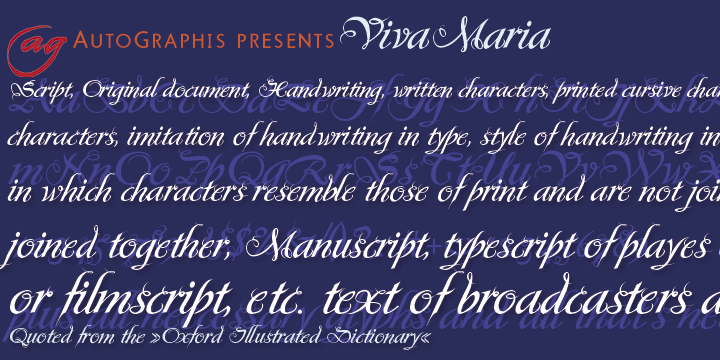
Viva Maria
Font Family by Autographis
Viva Maria could have been used for that famous, hilarious movie by Louis Malle staring Brigitte Bardot and Jeanne Moreau.
Maybe in a remake someone will use this very lively script in the credits and advertising material.